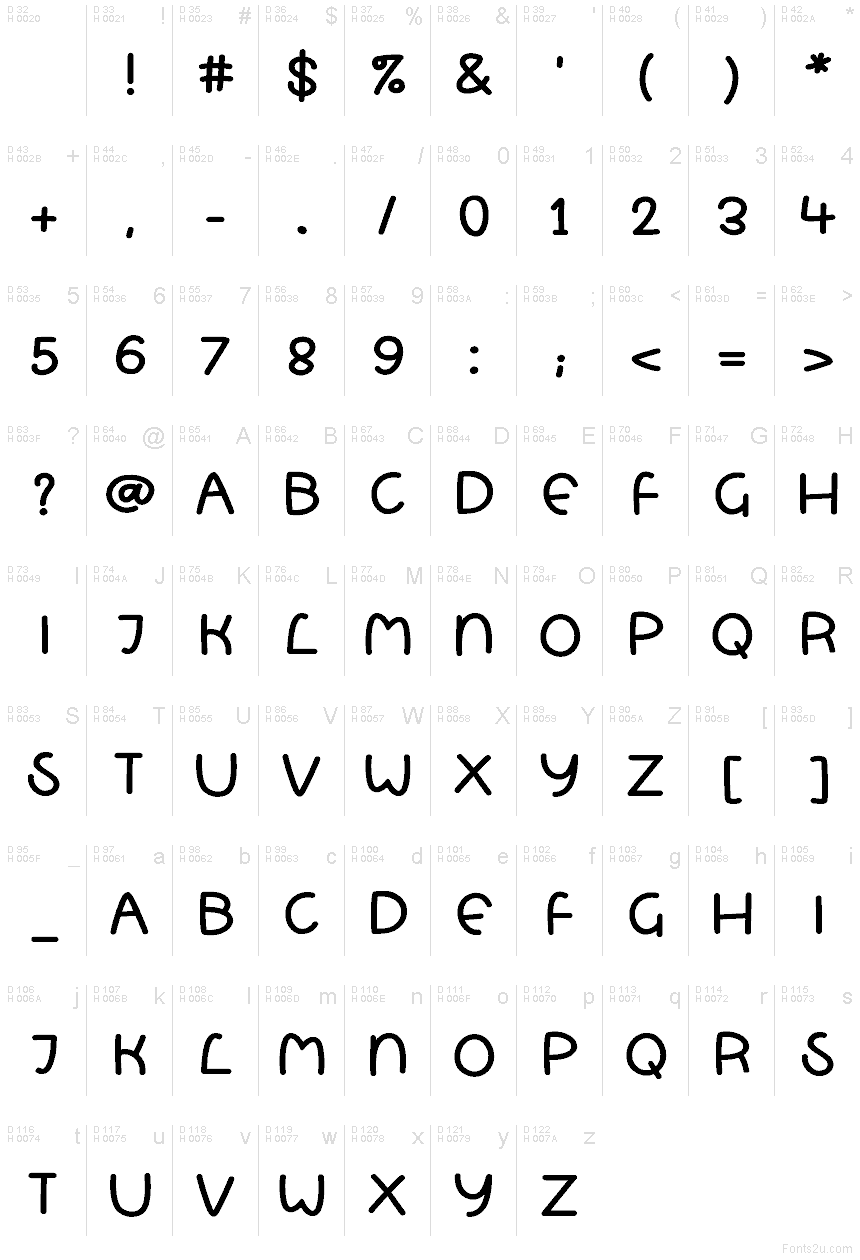
Super Power Regular
Super Power font by Font Bundles is a free regular playful handwritten display font. Its rounded, inky strokes and gentle bounce feel hand-drawn without getting messy, solving the classic “fun vs. readable” dilemma. Letters sit with roomy spacing, so words breathe even at smaller sizes, while the soft terminals keep the tone friendly and upbeat.
Using Super Power, titles pop on kids’ posters, birthday invites, classroom printables, stickers, product labels, and cheerful social posts. This free font shines on big, colorful headlines, then stays legible when scaled down for tags or captions. Pair it with a simple, light sans serif for body text, and give the headlines extra tracking to amplify the playful rhythm.